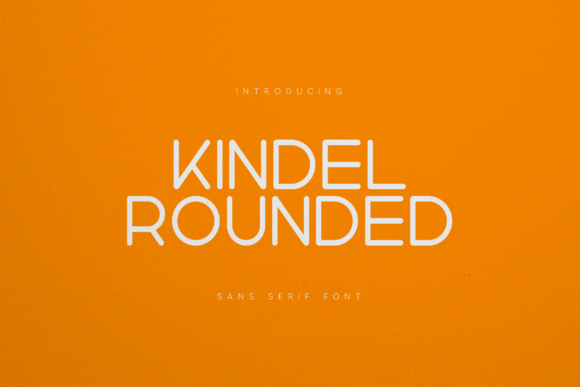
Kindel Font
Kindel Font Specimen
Kindel is an elegant modern sans serif font designed with warmth, balance, and subtle character. Its smooth curves, gentle geometry, and refined stroke contrast create a calm, friendly appearance while remaining professional and contemporary.
Kindel Glyphs